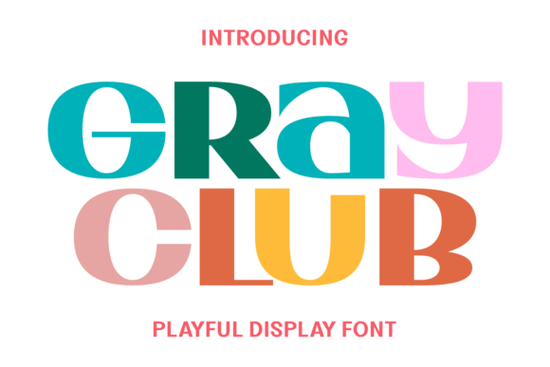
If you're looking for a playful, retro-inspired typeface that works across seasonal crafts, kids' projects, and print-on-demand designs, the Gray Club Font is worth a close look. It blends minimalist letterforms with a groovy vintage feel think 70s and 80s typography with a modern, craft-friendly twist. For designers and crafters who need a font that cuts cleanly on machines like Cricut and Silhouette, this one checks a lot of boxes.
What kind of projects does the Gray Club Font work well for?
This font has a rounded, chunky shape that reads clearly at various sizes. That makes it flexible enough for a wide range of creative work, including:
- T-shirt designs especially girly, unicorn-themed, or kids' apparel
- Planners and journals its simple, cute style fits right into daily spreads
- Seasonal SVGs Christmas cards, spring florals, autumn Thanksgiving sublimations
- Motivational quotes the bold contours give words a warm, uplifting presence
- Children's materials baby shower invites, classroom decor, kids' party supplies
- Stickers and labels smooth curves mean clean cuts every time
Whether you sell on Etsy, run a small print-on-demand shop, or just love making handmade gifts, this font adapts to the project at hand.
Does it work with Cricut and other cutting machines?
Yes. The Gray Club Font is designed to be cutting-machine friendly. Its smooth, rounded edges produce clean results in Cricut Design Space and similar software. You won't spend extra time weeding or troubleshooting jagged cuts. If you've used display fonts like Sunny Gang or Chunky Summer for cutting projects before, this one performs with the same kind of reliability.
What makes it different from other retro or display fonts?
Plenty of fonts claim a retro vibe, but the Gray Club Font strikes a specific balance. It's quirky without being chaotic, and cute without being childish. The letterforms have a distinct silhouette bold enough to stand out on a T-shirt, yet clean enough to use in a planner layout. There's a softness to it that feels handmade, which pairs nicely with faith-based designs, love-themed projects, and anything targeting a younger audience.
Compared to something like Pepper Pedro, which leans more playful and cartoonish, Gray Club sits in a slightly more versatile lane. And while fonts such as Varsity Universe carry a sportier tone, Gray Club leans into that sweet, nostalgic warmth.
Can I use it for sublimation and print-on-demand?
Absolutely. The font's clean curves and bold weight make it a solid choice for sublimation printing. It holds up well on mugs, tote bags, pillows, and apparel. If you create seasonal sublimation designs say, fall Thanksgiving bundles or spring greeting card sets the Gray Club Font blends right into that workflow.
What styles pair well with it?
Since the Gray Club Font is bold and decorative, it pairs best with a simple sans-serif or handwritten font for body text. A few ideas:
- Use it for headlines on cards and posters, then switch to a clean sans-serif for details.
- Combine it with a script font for layered T-shirt designs one line in Gray Club, another in a flowing cursive.
- Mix it with other display fonts from Creative Fabrica, like Raither Display, for projects that need two bold typefaces with different personalities.
Is it a good fit for kids' and baby designs?
Yes, and that's one of its strongest use cases. The rounded, friendly letter shapes feel approachable and warm perfect for baby shower invitations, nursery wall art, kids' birthday party supplies, and classroom materials. The font carries that spirit of childhood without looking too babyish, so it works across a range of ages and occasions.
Designers who regularly create for family-oriented audiences will find themselves reaching for this font again and again. It's the kind of typeface that adds personality to a design without stealing the show from your artwork or message.
Start with one small project a single card, a sticker sheet, or a simple T-shirt mockup and see how the Sunny Gang style energy of Gray Club fits into your creative lineup. You might be surprised how often it becomes your go-to.